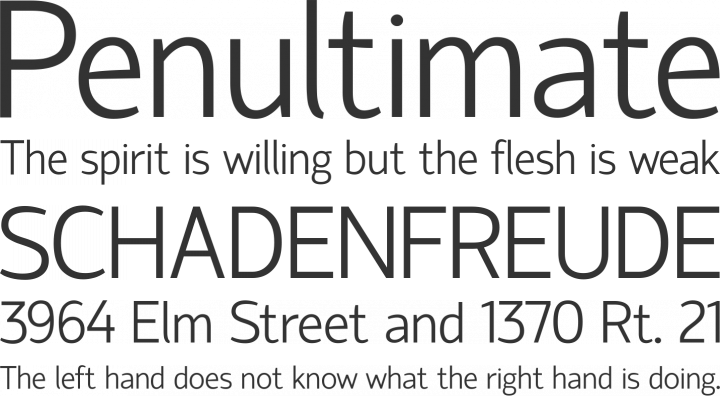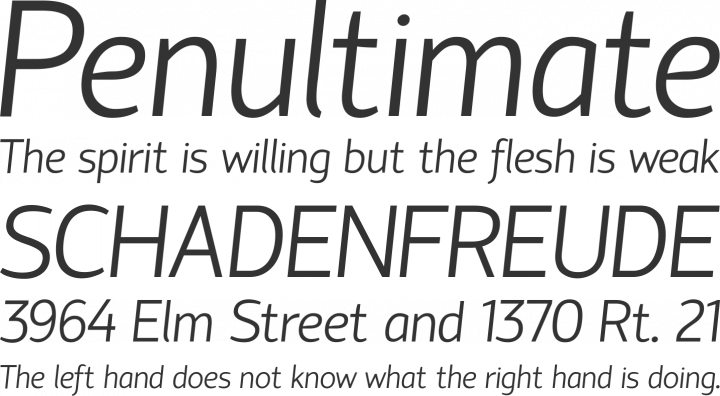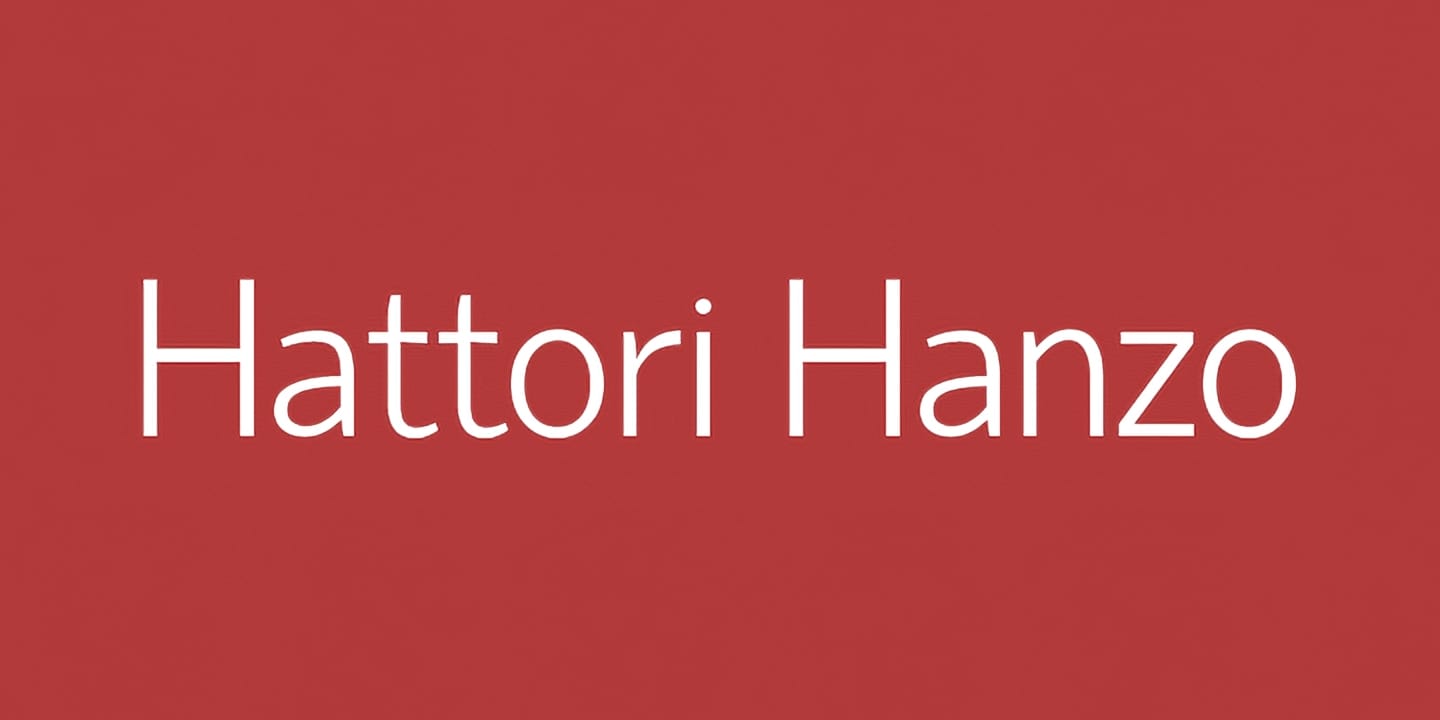
The Hattori Hanzo font family offers a stylish and readable option for various design needs. With its elegant sans serif style, both the regular and italic versions provide versatility that suits a range of projects, from professional documents to creative designs.
Whether you are working on branding, advertising, or digital content, this font adds a modern touch while maintaining clarity. The clean lines and balanced proportions make it an excellent choice for headlines and body text alike.
With the Hattori Hanzo font family, you may find that your typography choices stand out and effectively communicate your message. Overall, it's a valuable addition to any designer's toolkit, ensuring that your visuals remain polished and engaging.